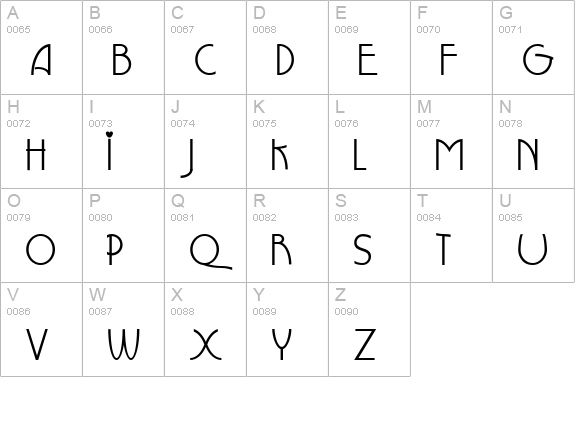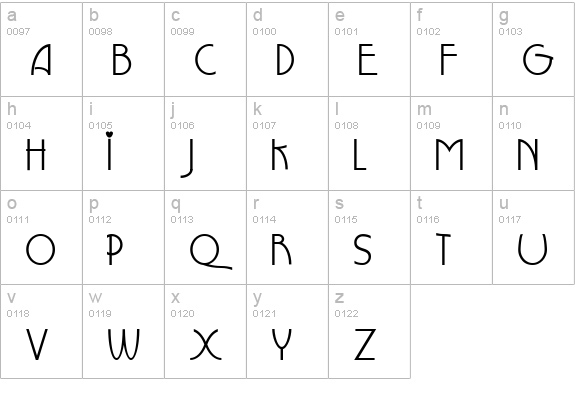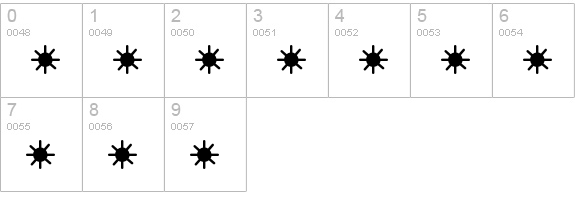
Grouser Font Details
Grouser font is a modern and versatile typeface that combines elegance with a touch of playfulness. Its clean lines and stylish curves make it perfect for a wide range of design projects, from branding to packaging to web design. With a unique and eye-catching look, Grouser font is sure to make your text stand out and leave a lasting impression on your audience. And the best part? Grouser font is completely free to download at FontsMarket.com. So whether you're a professional designer looking for a new font to add to your collection or just someone who loves experimenting with different typefaces, Grouser font is the perfect choice. Download it today and start creating stunning designs that are sure to turn heads.